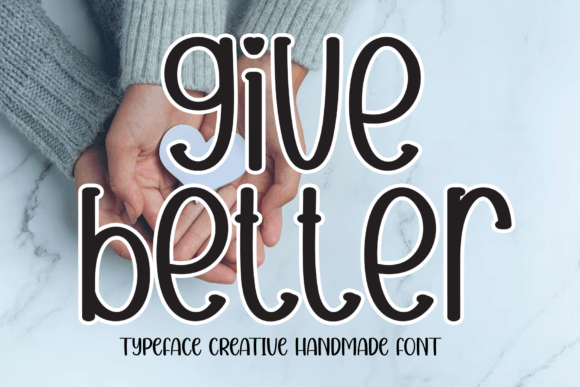
Introduction to Give Better Font
Give Better is a sweet and friendly handwritten font.
Fresh and neat, this font is ideal for writing wedding invitations, cards, or any other design that might need a fun touch .
Give Better Font offers exceptional quality and versatility, making it a valuable addition to your design toolkit. Whether you’re creating for personal projects or commercial use, Give Better Font delivers professional results.